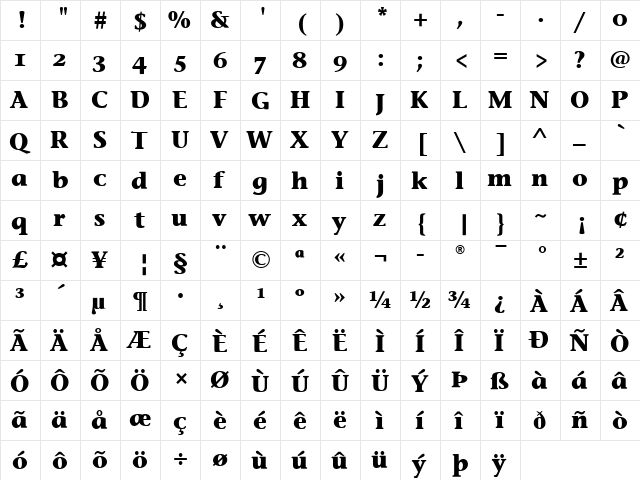
StoneInfOSITC Bold Font Preview
StoneInfOSITC Bold
StoneInfOSITC Bold Font Details
Design Context for StoneInfOSITC Typeface
StoneInfOSITC offers clean, dependable letterforms without strong stylistic allegiance, making it a practical choice for designers who need flexibility. Its bold stroke weight gives it real presence on the page.